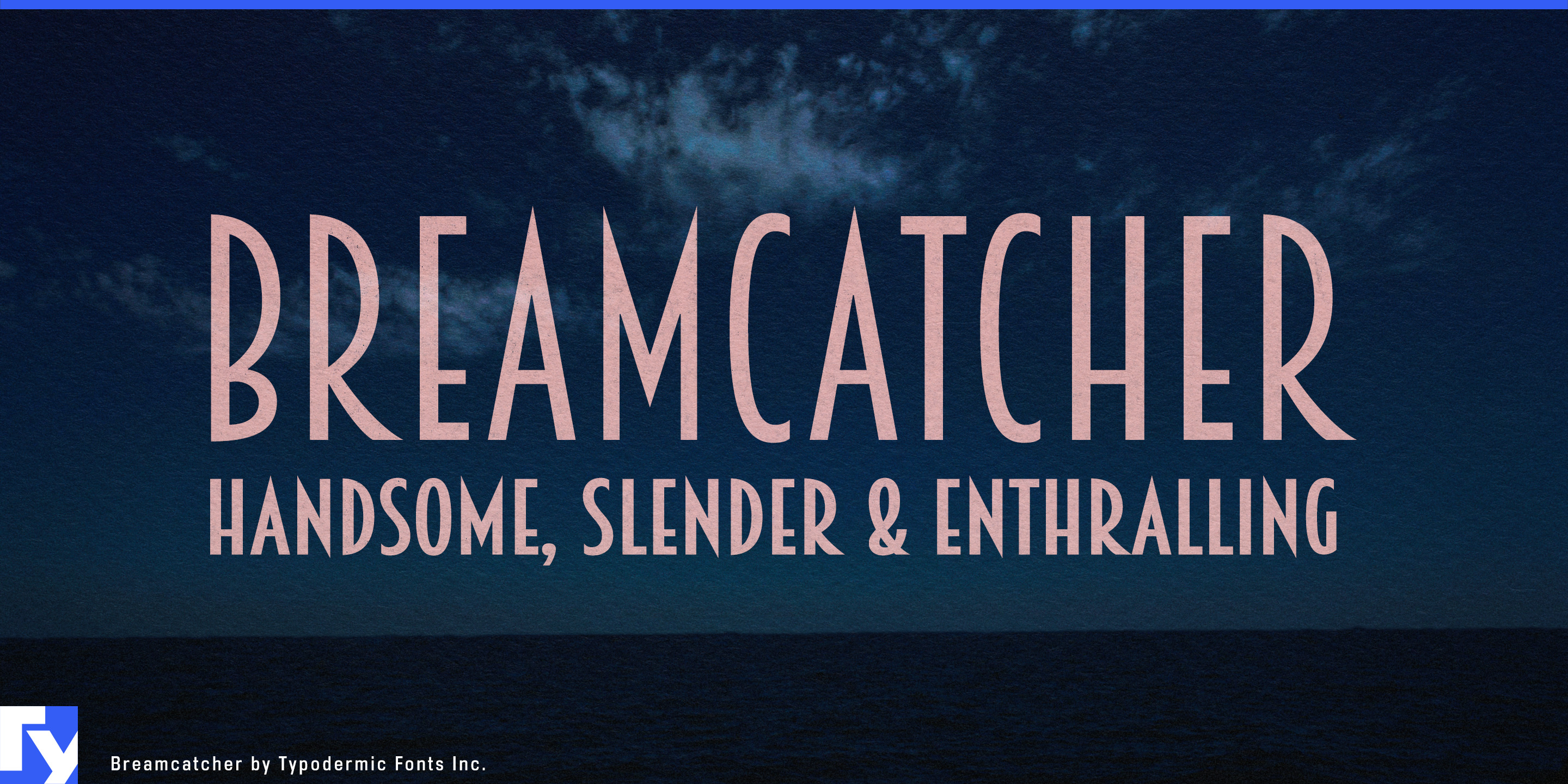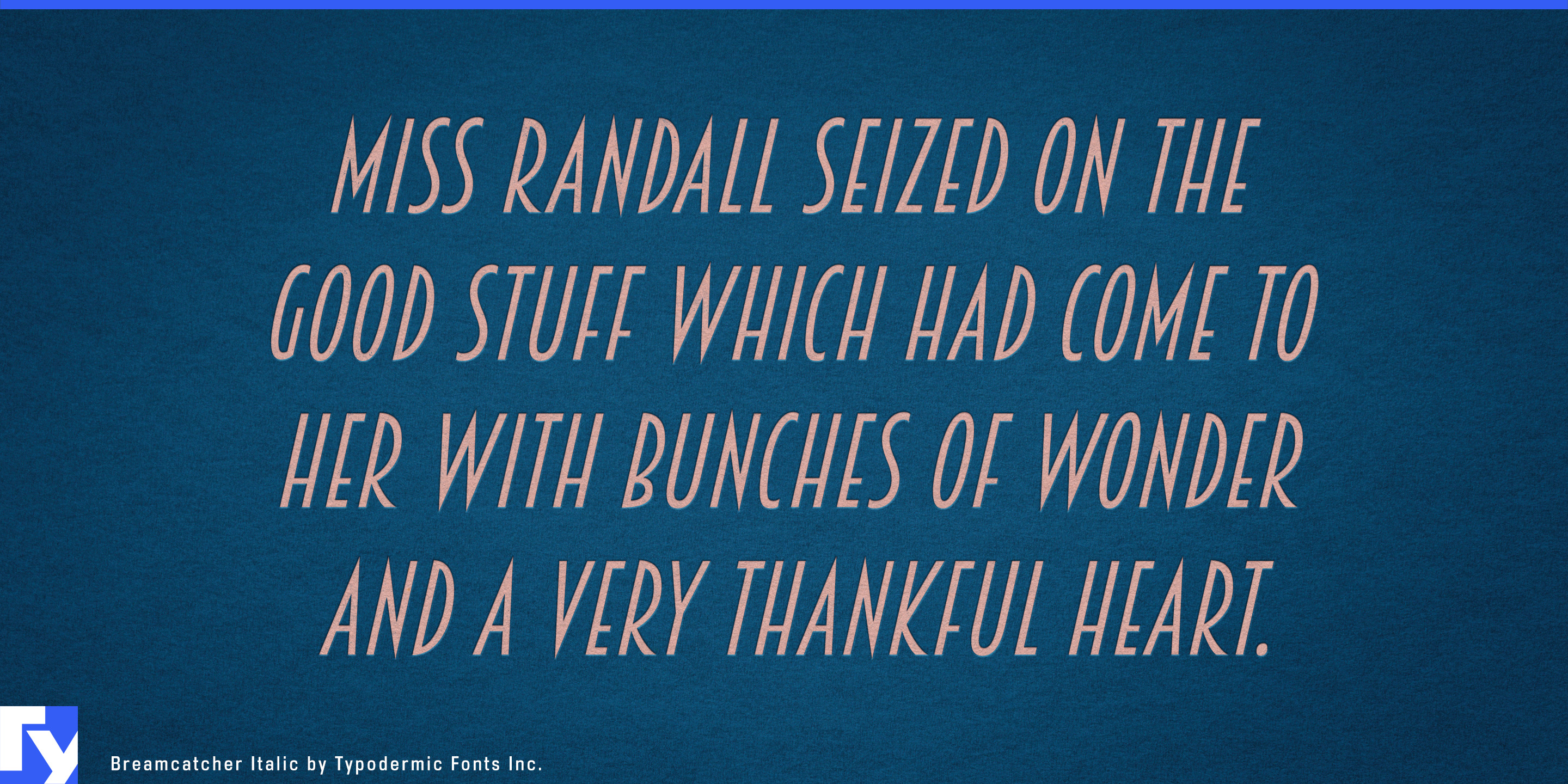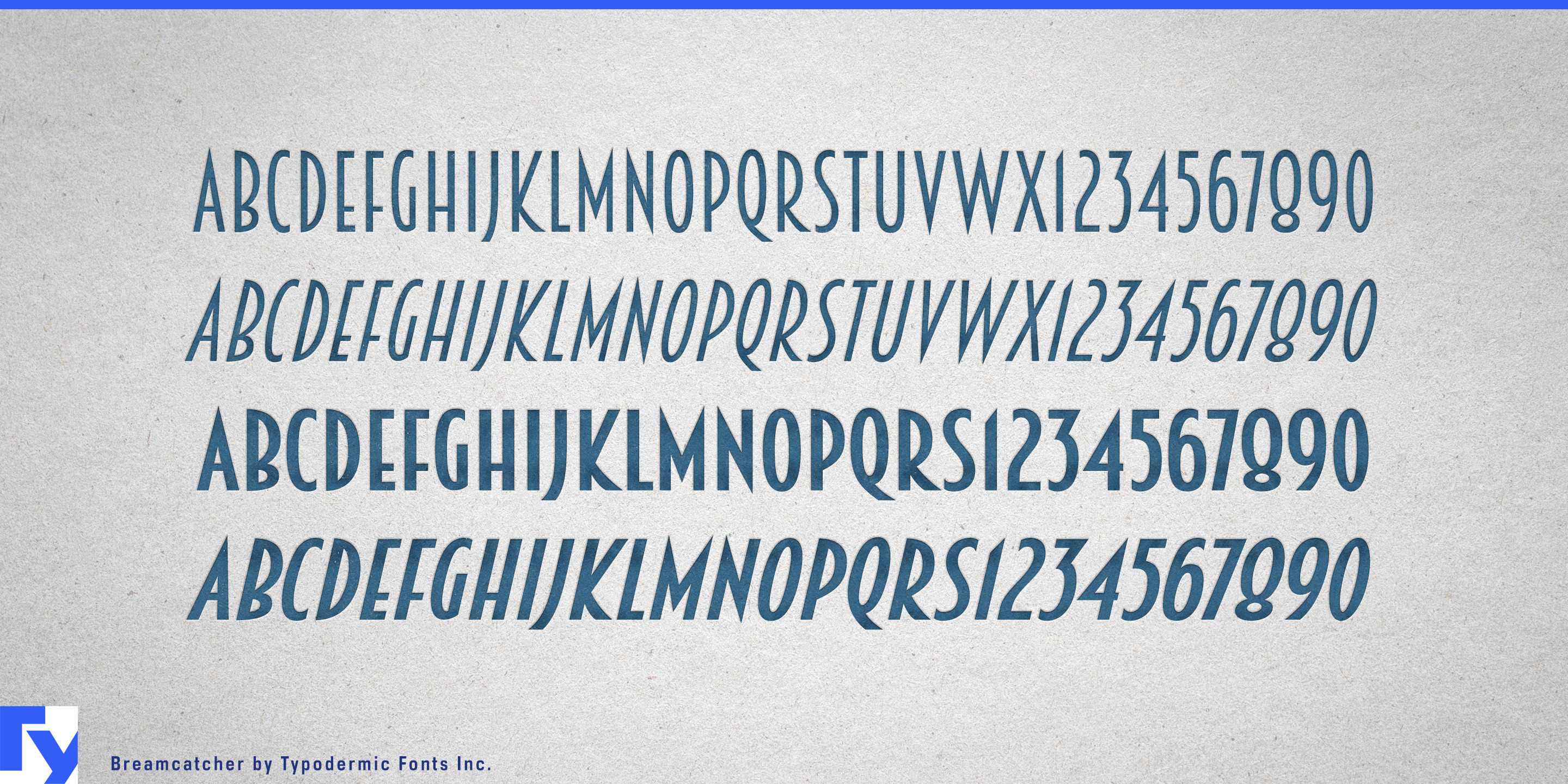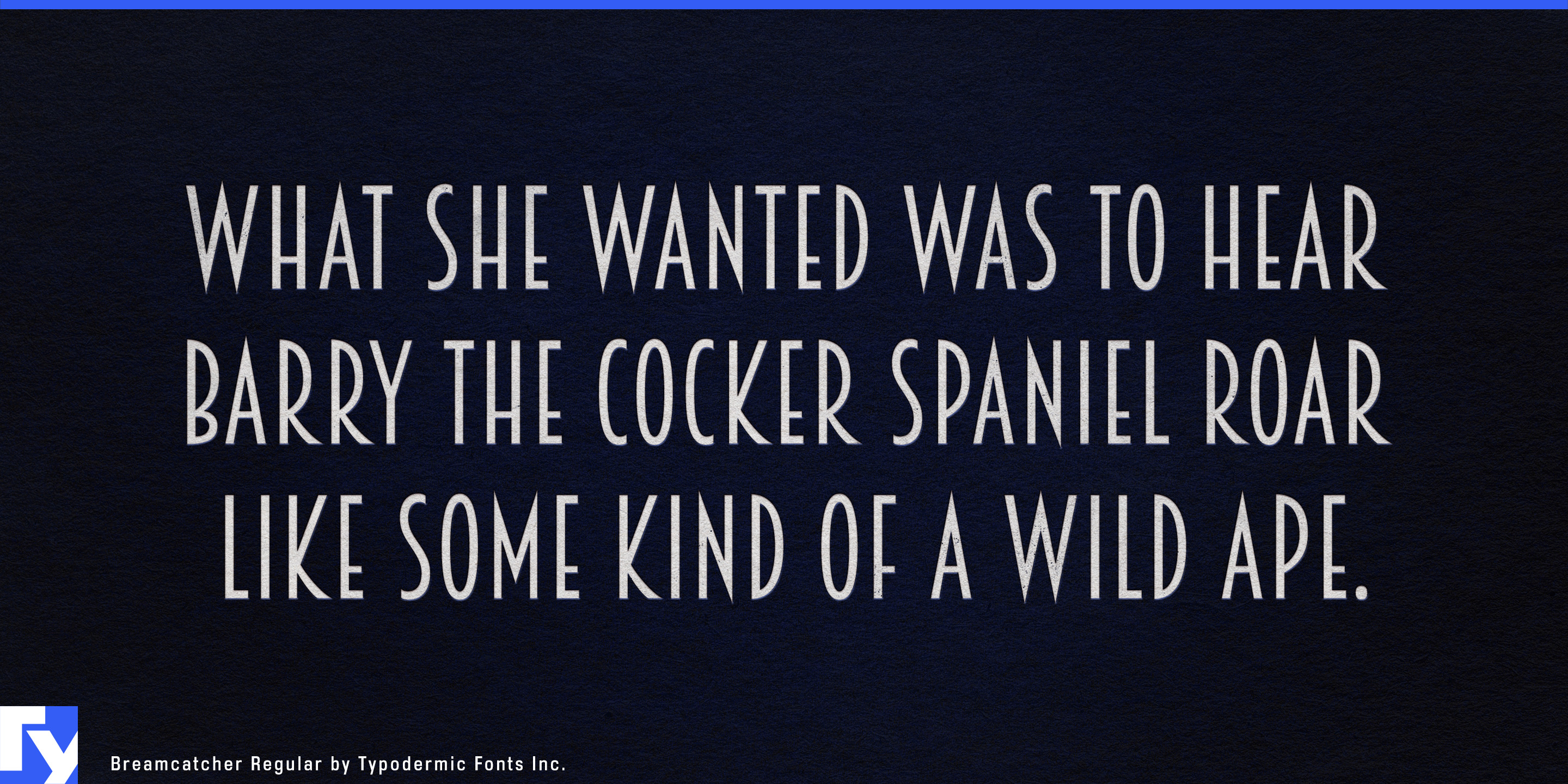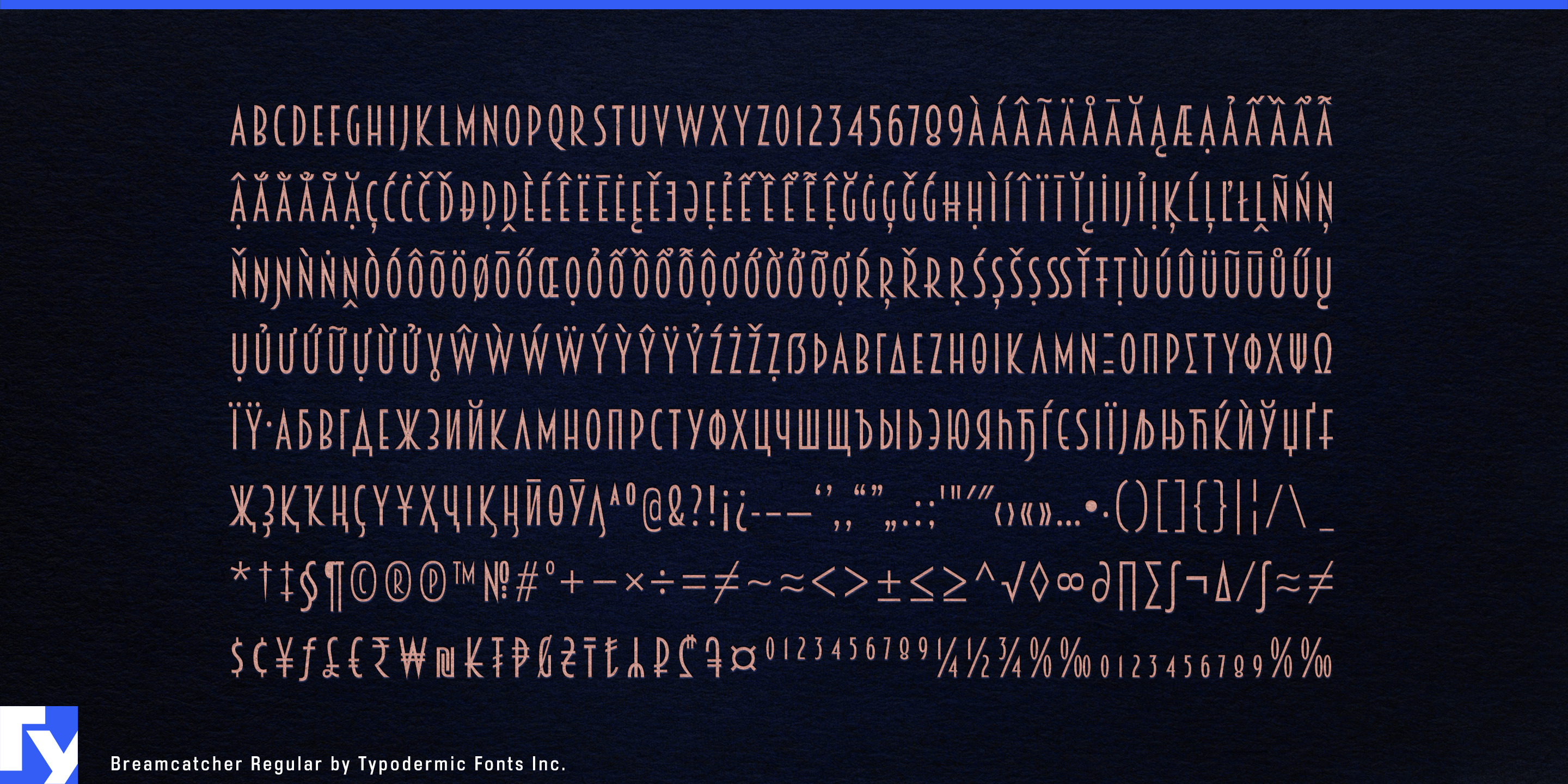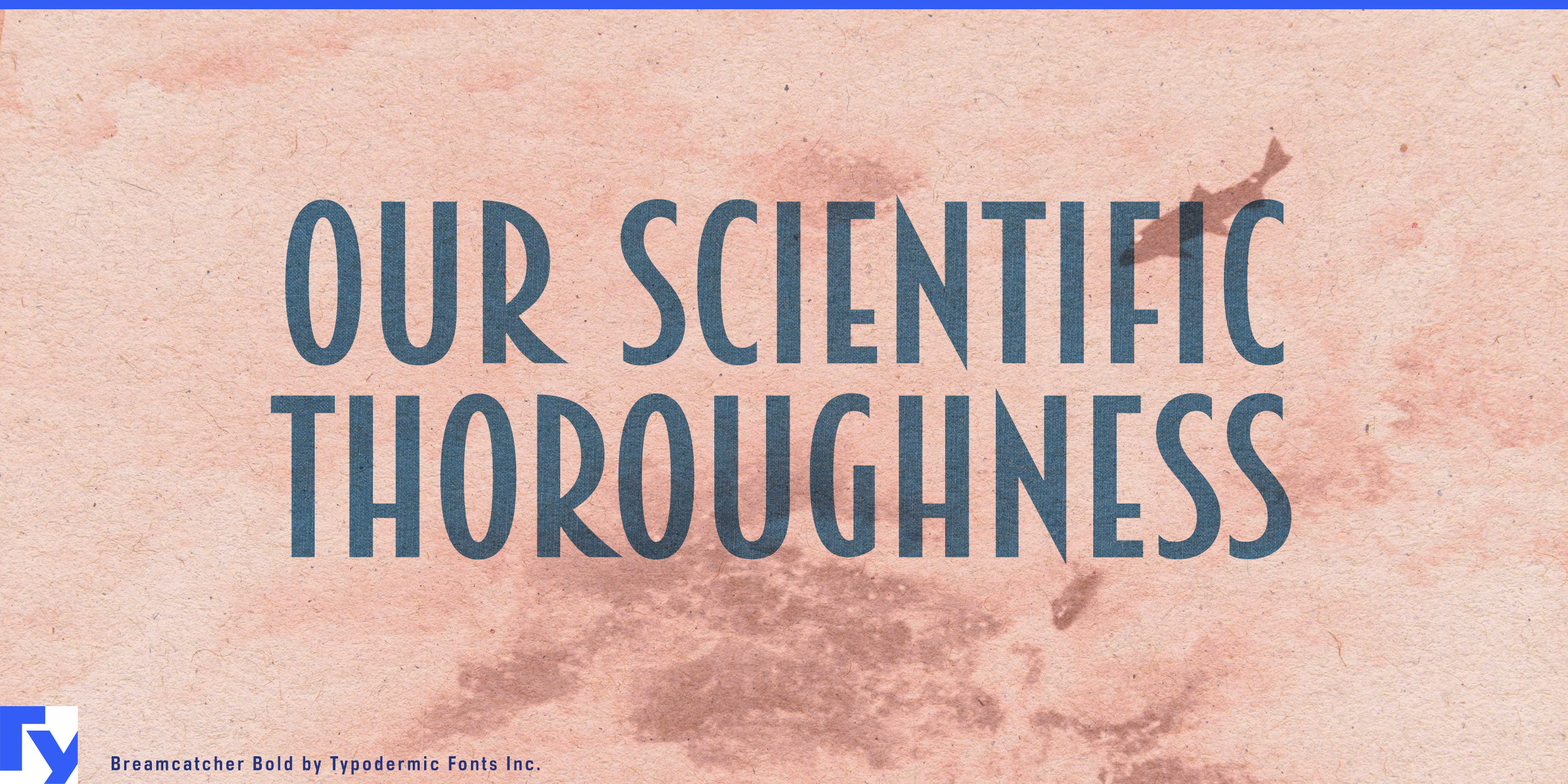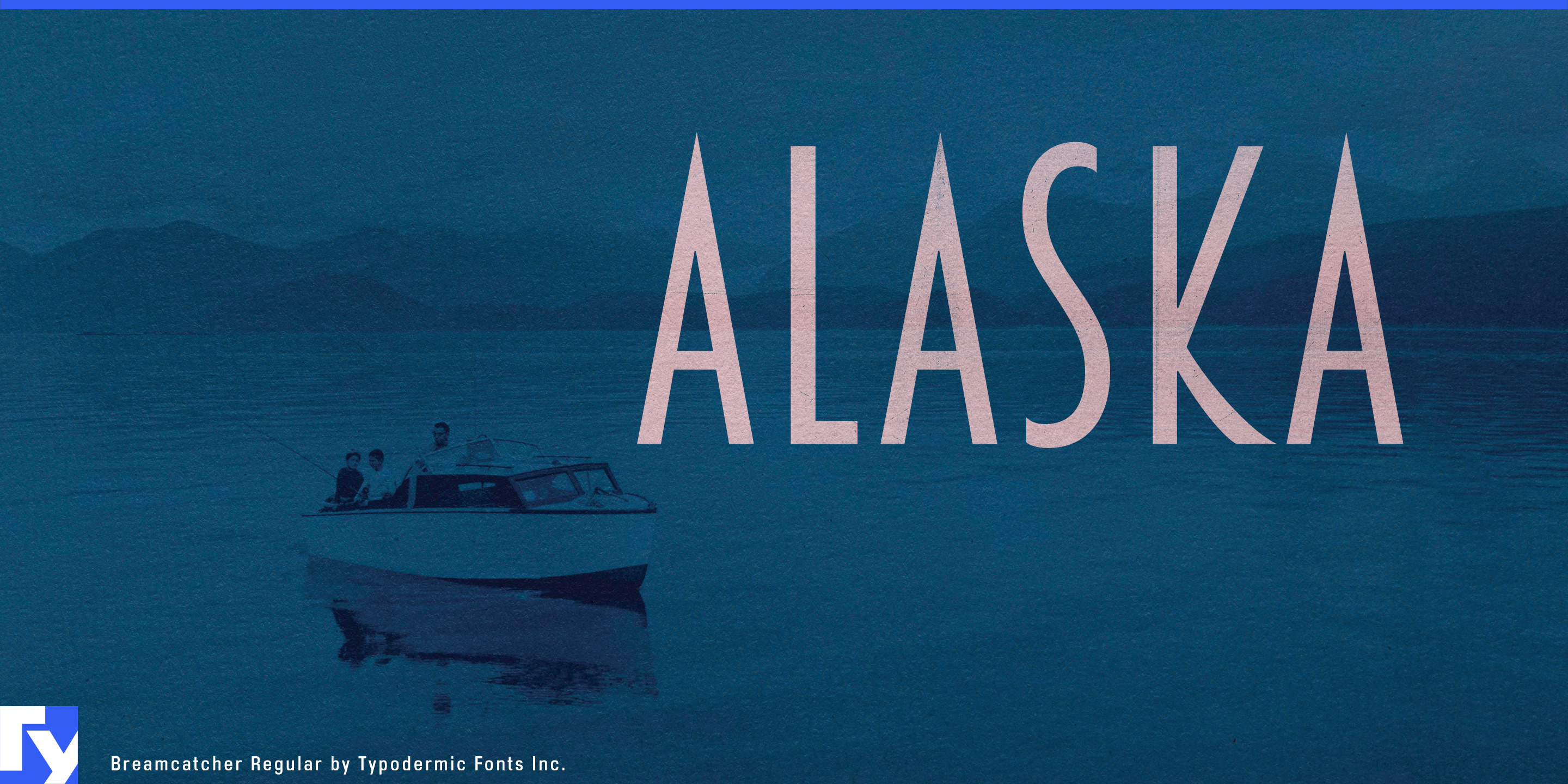
Breamcatcher
Breamcatcher captures the elegance of 1920s Art Deco while bringing it into the modern designer’s toolkit. Its tall, slender forms and graceful curves evoke the poise of a bygone era, yet its subtle irregularities keep it warm and human—never cold or mechanical. The generous letterspacing gives each character room to breathe, creating a calm, confident rhythm on the page. Need to conserve space? Tighten the tracking and watch Breamcatcher adapt without losing its charm.
Now available in a versatile range of weights and styles, Breamcatcher offers more ways to bring its signature refinement into your work. Use lighter styles for airy, understated elegance; switch to bolder variants for headlines that command attention without shouting. Whether set in upright or italic, Breamcatcher’s proportions remain impeccably balanced. This typeface excels in applications where sophistication matters: luxury branding, upscale menus, editorial layouts, event invitations, and packaging that demands a touch of timeless grace. With support for most Latin-based European languages, Greek, and Cyrillic, Breamcatcher’s voice carries with equal authority across borders.
In a world that often rushes past the details, Breamcatcher invites the reader to slow down, savor the space between letters, and linger a moment longer with your message. It’s typography as an experience—measured, graceful, and unforgettable.